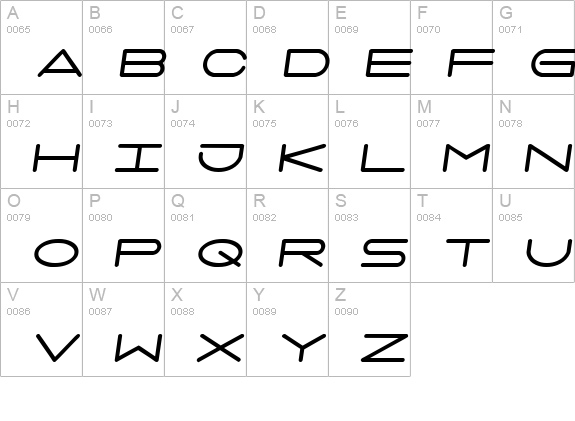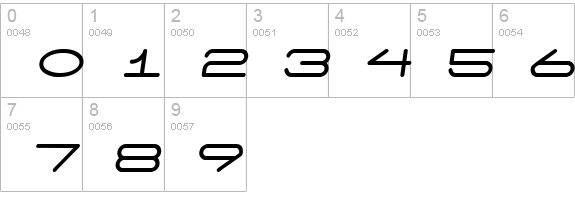
7 days oblique Font Details
7 days oblique is a distinctive, italic variant in the 7 typeface family \xE2\x80\x94 well suited to design and typography projects.
Introducing the captivating 7 Days Oblique font, a versatile and modern typeface designed to add a touch of sophistication to your projects. With its sleek and stylish appearance, this font is perfect for creating eye-catching designs that stand out. The unique oblique angles of the letters give a sense of movement and dynamism, making it ideal for adding a contemporary edge to logos, branding, posters, and more. The best part? 7 Days Oblique font is available for free download at FontsMarket.com. This means you can easily access this stunning font and elevate your design projects without any cost. Don't miss out on the opportunity to enhance your work with this elegant and trendy typeface. Download 7 Days Oblique font today and let your creativity shine!